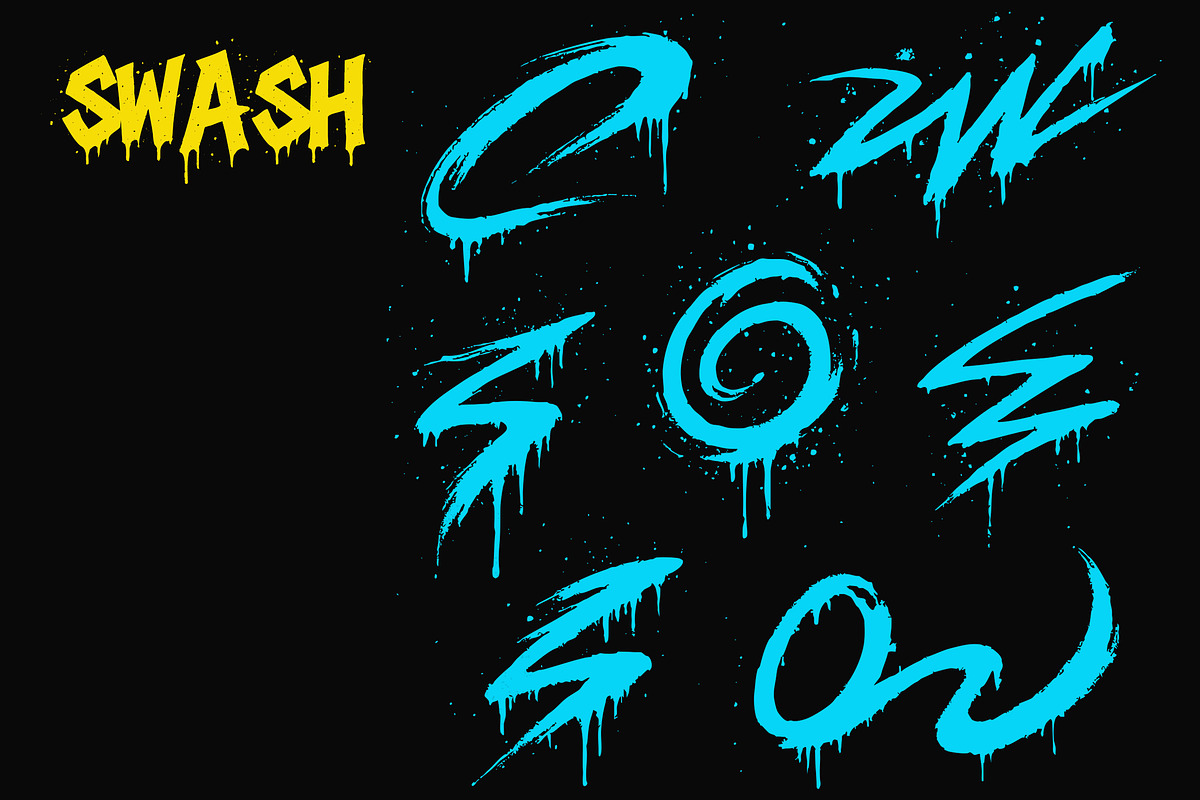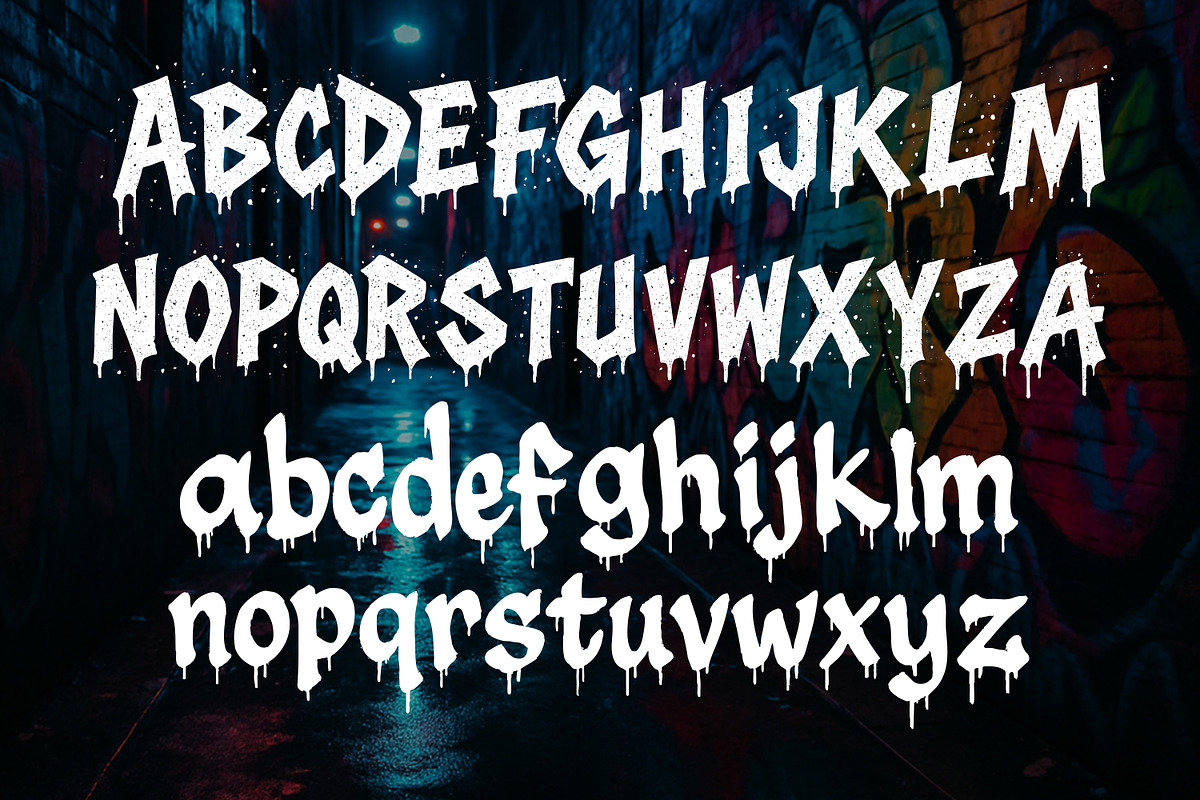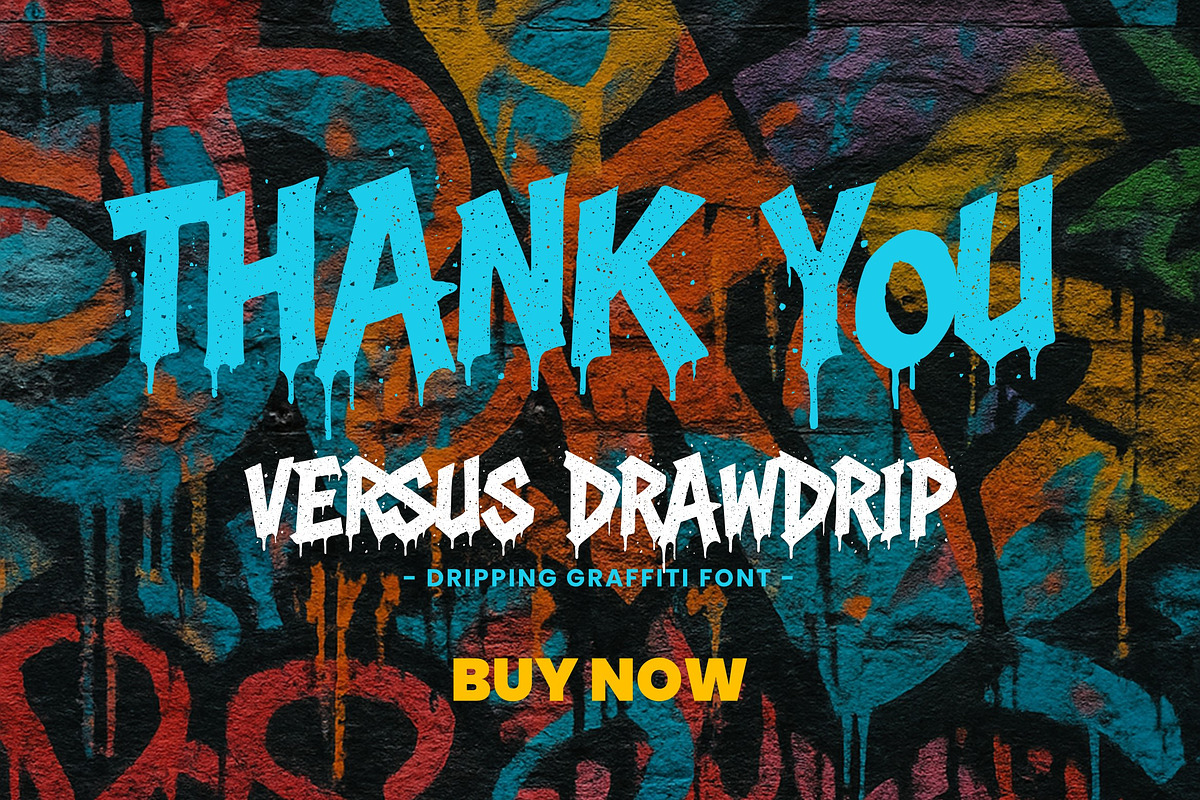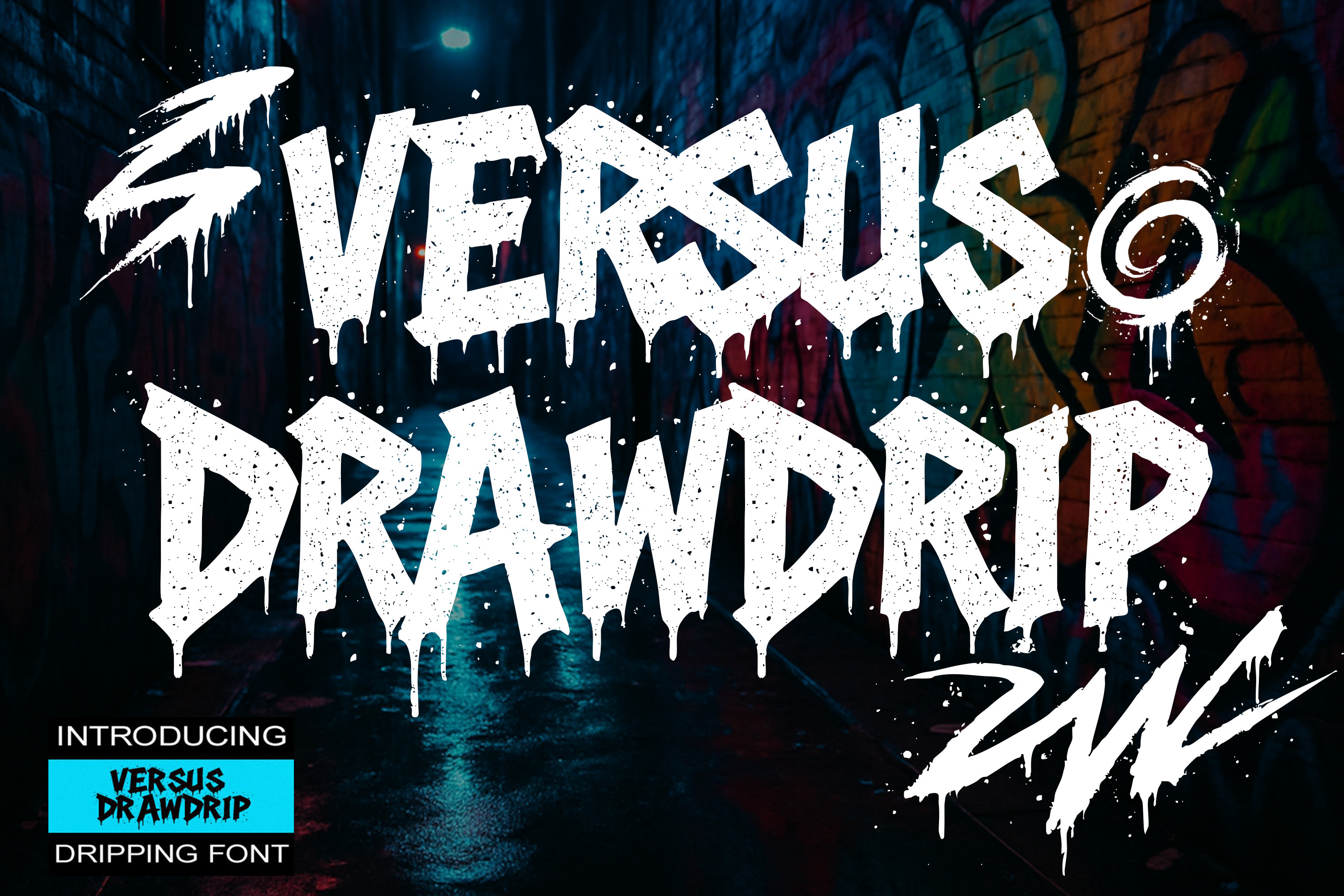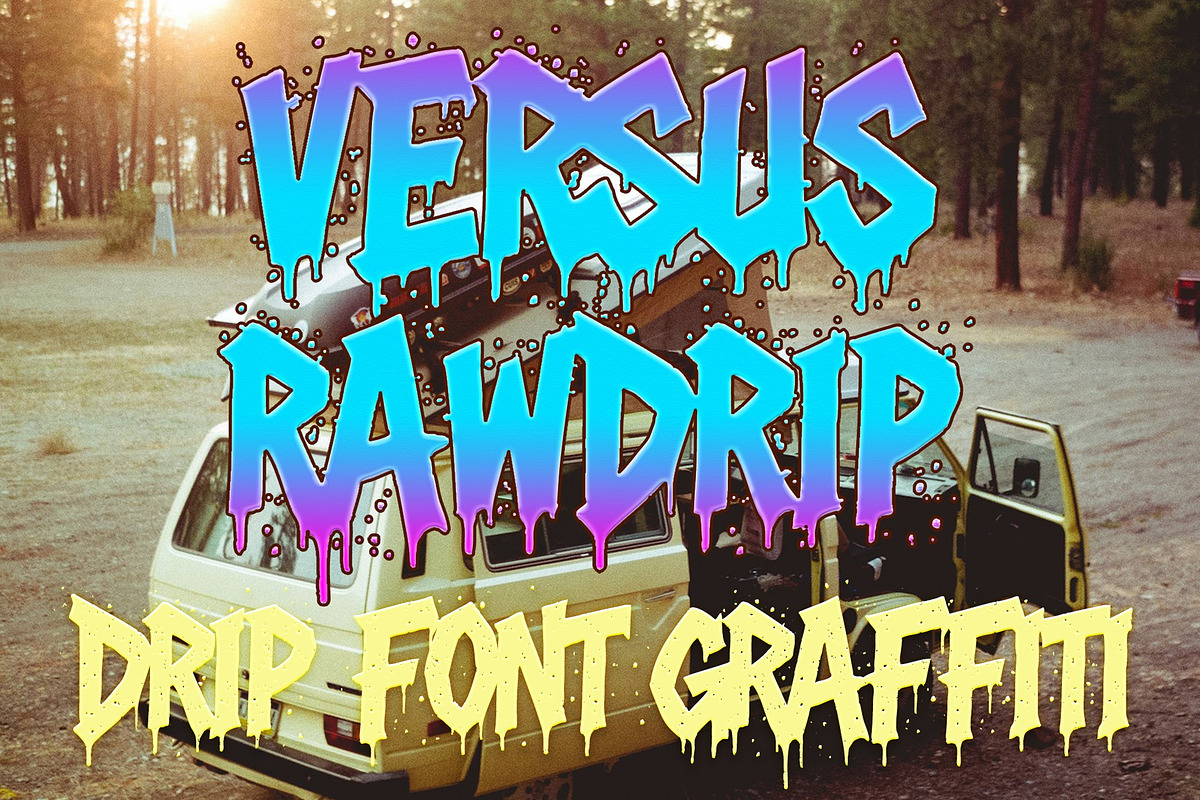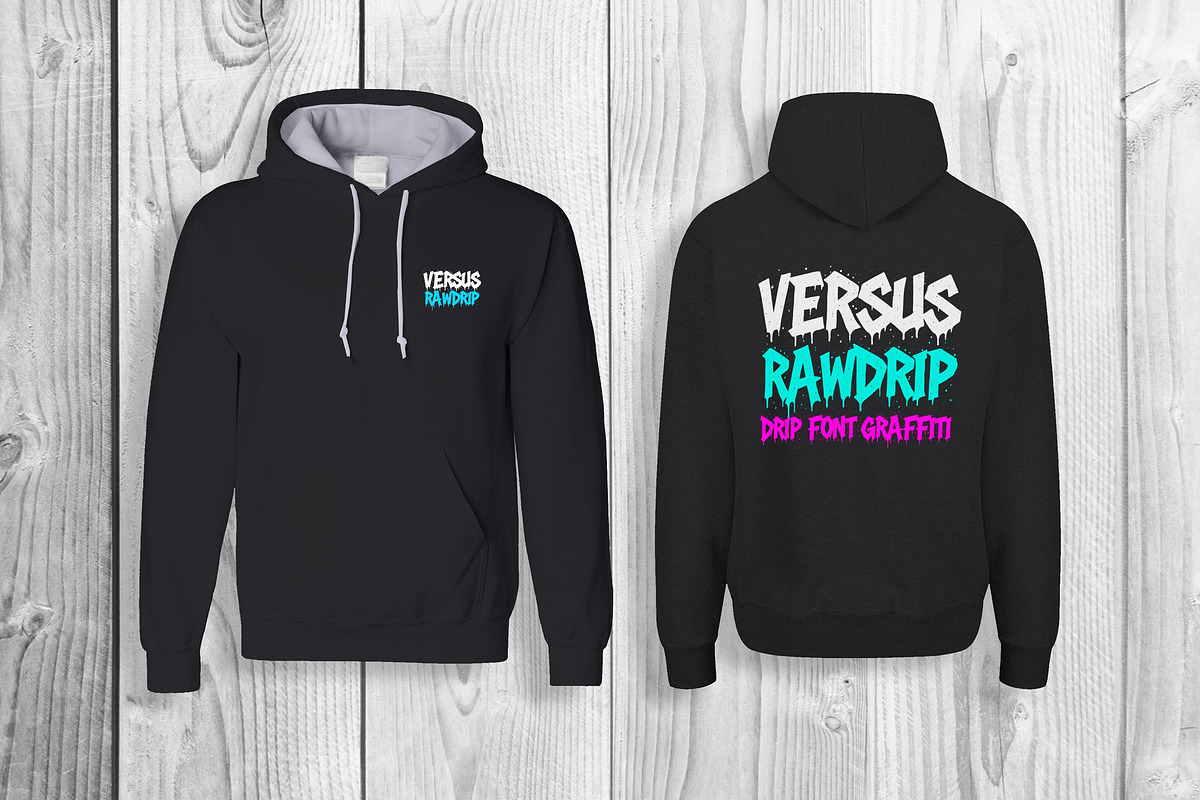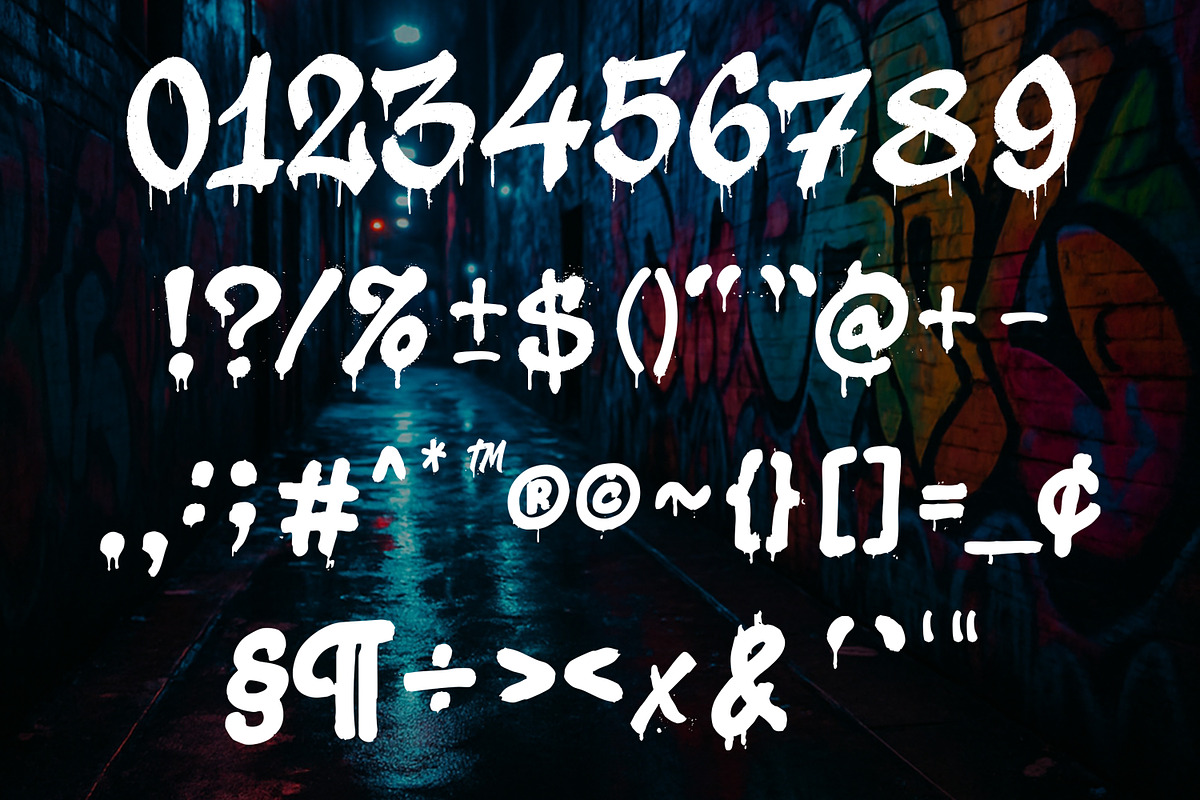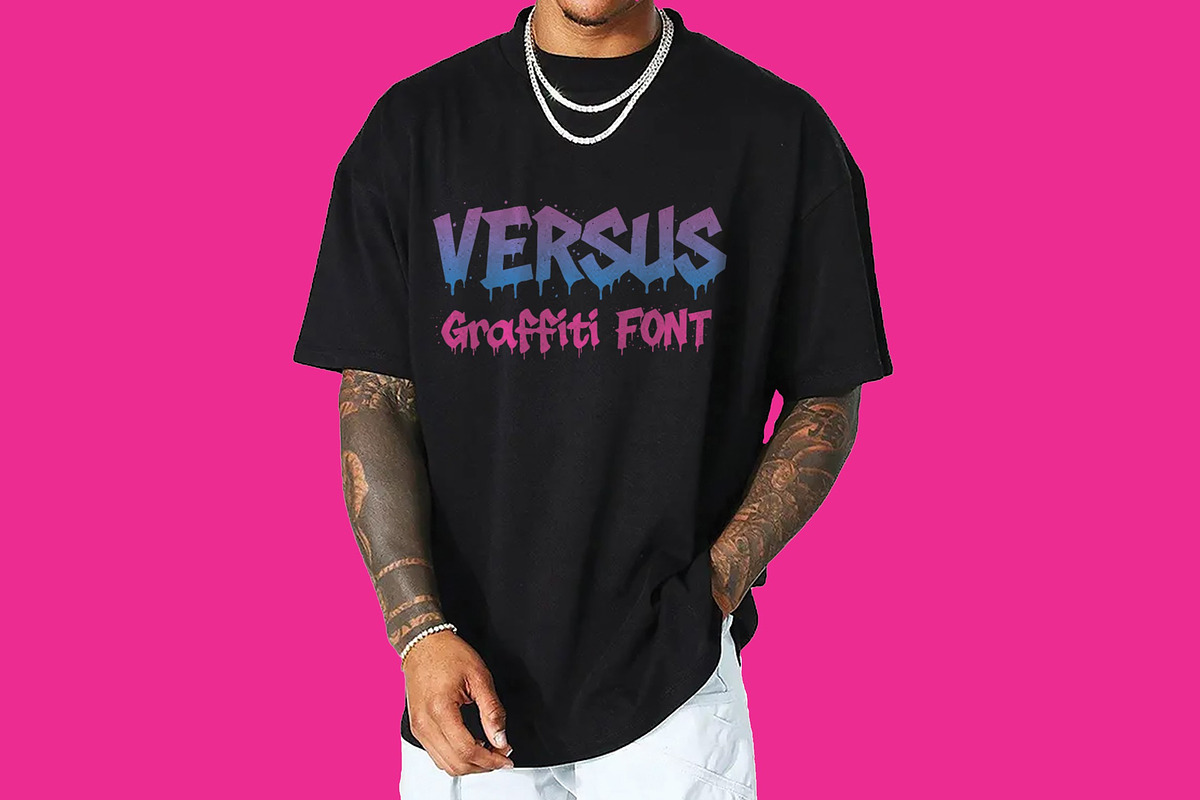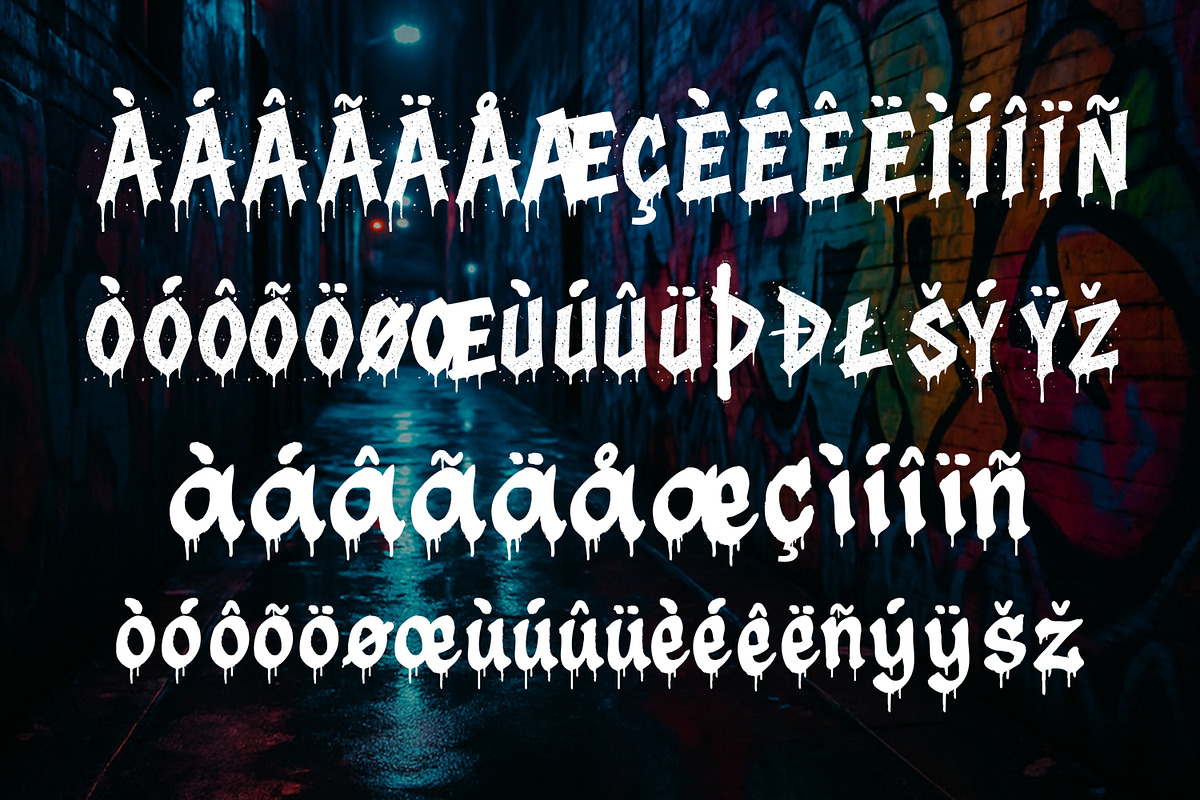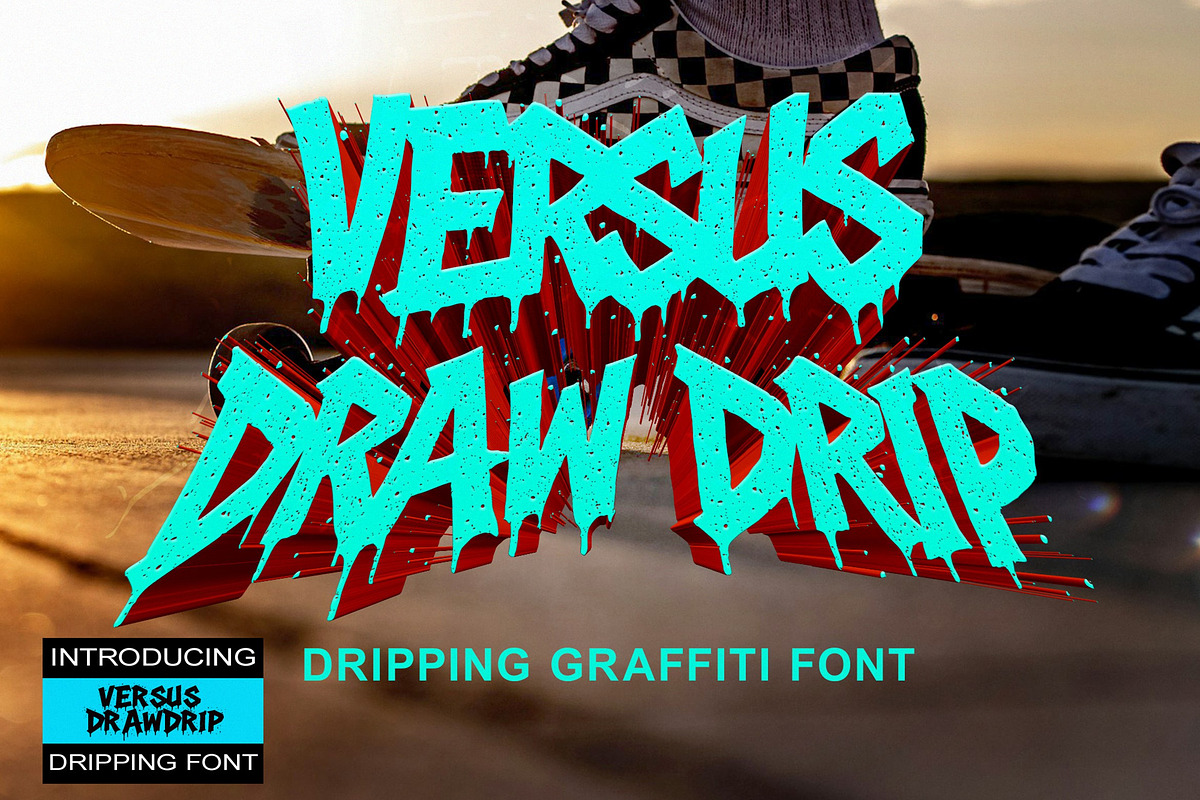
Dripping Graffiti Font
Versus DripGraffiti Font
This font is inspired by Raw urban Dripping style graffiti handstyle and the raw energy of street graffiti. Perfect for branding or any digital design that needs a wild and edgy touch. Great for creators who want their visuals to stand out with no compromises
- 223 Glyps included Uppercase, Lowercase, Numeral, Punctuation, Multilingual international Language, swash and ornament Street art